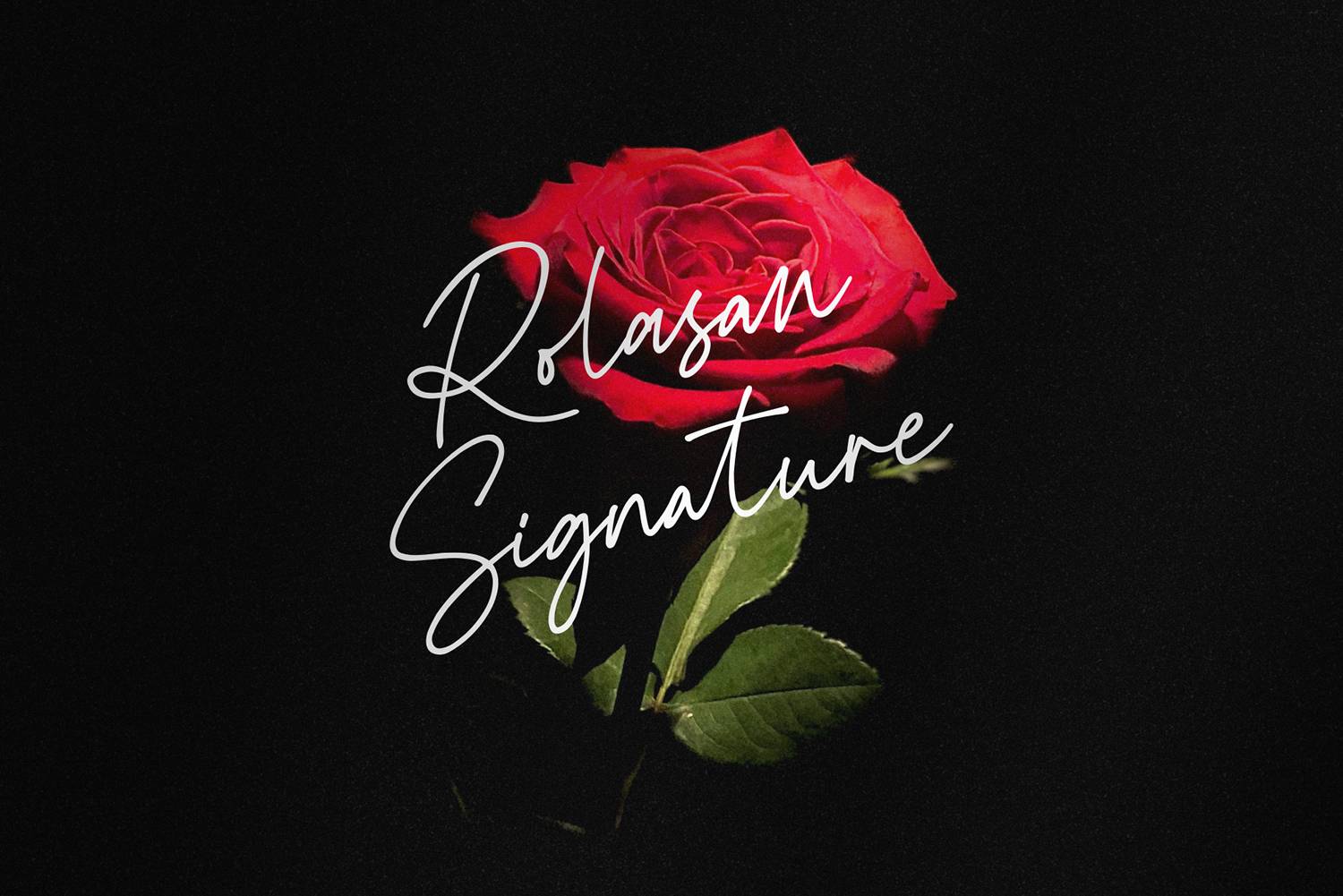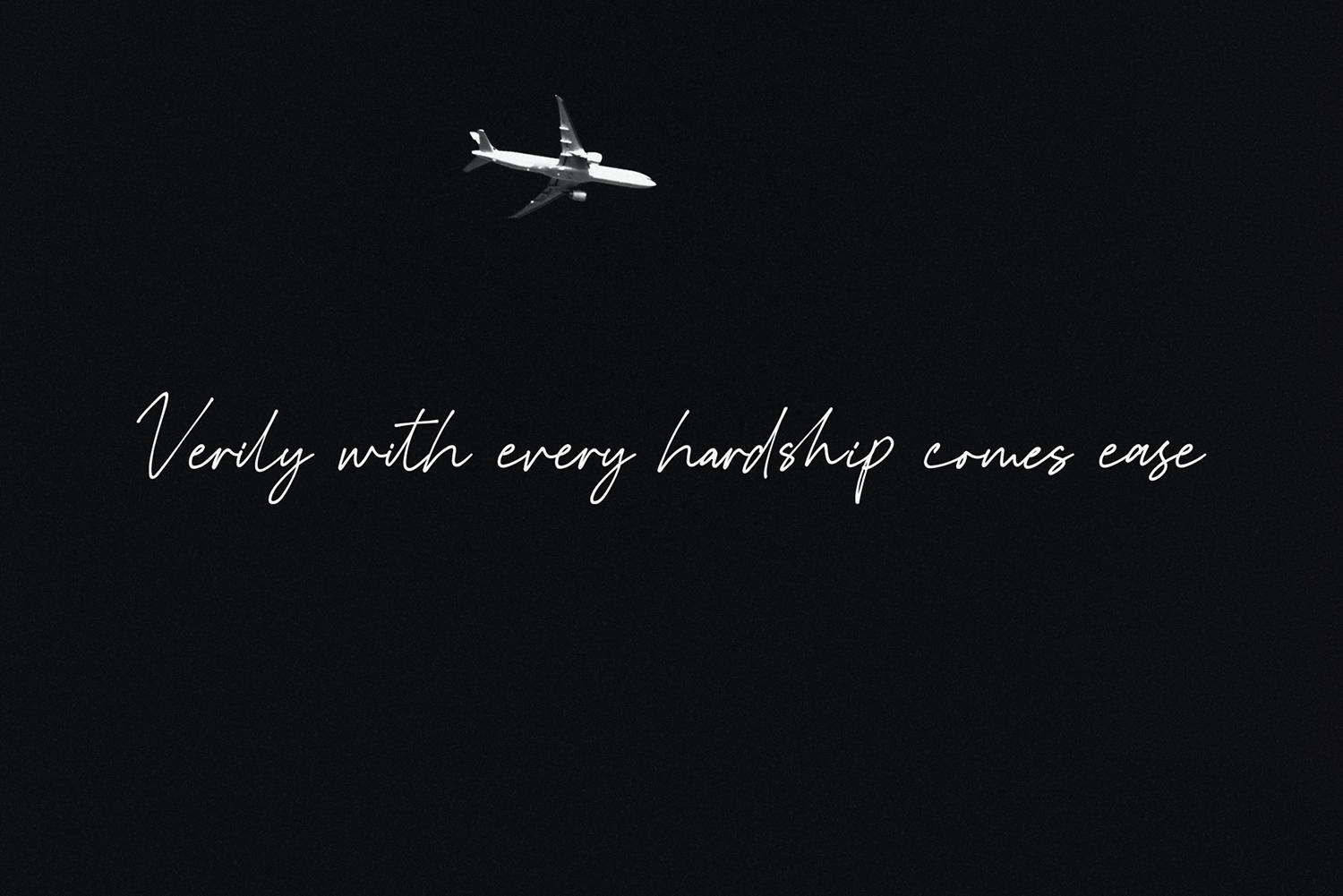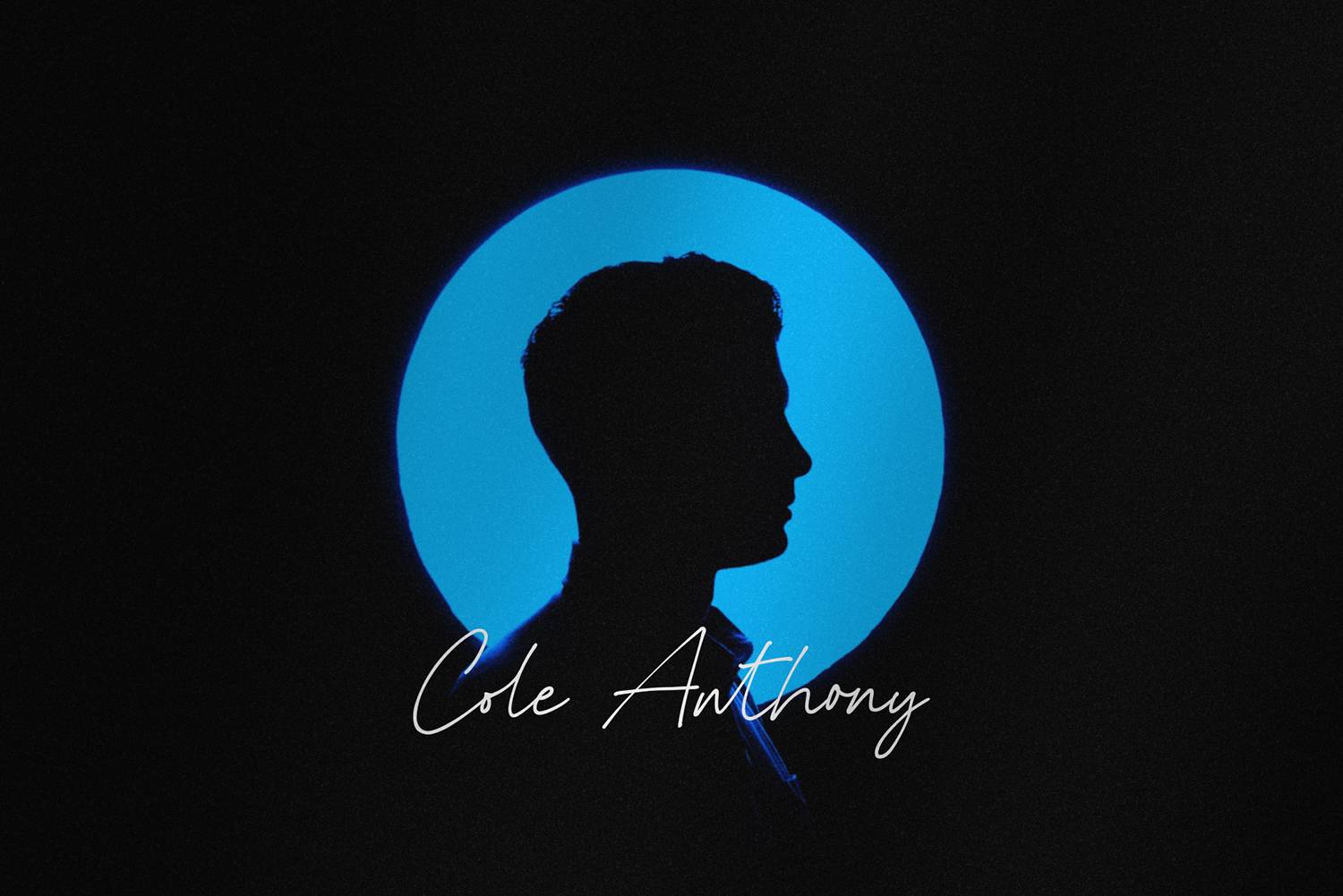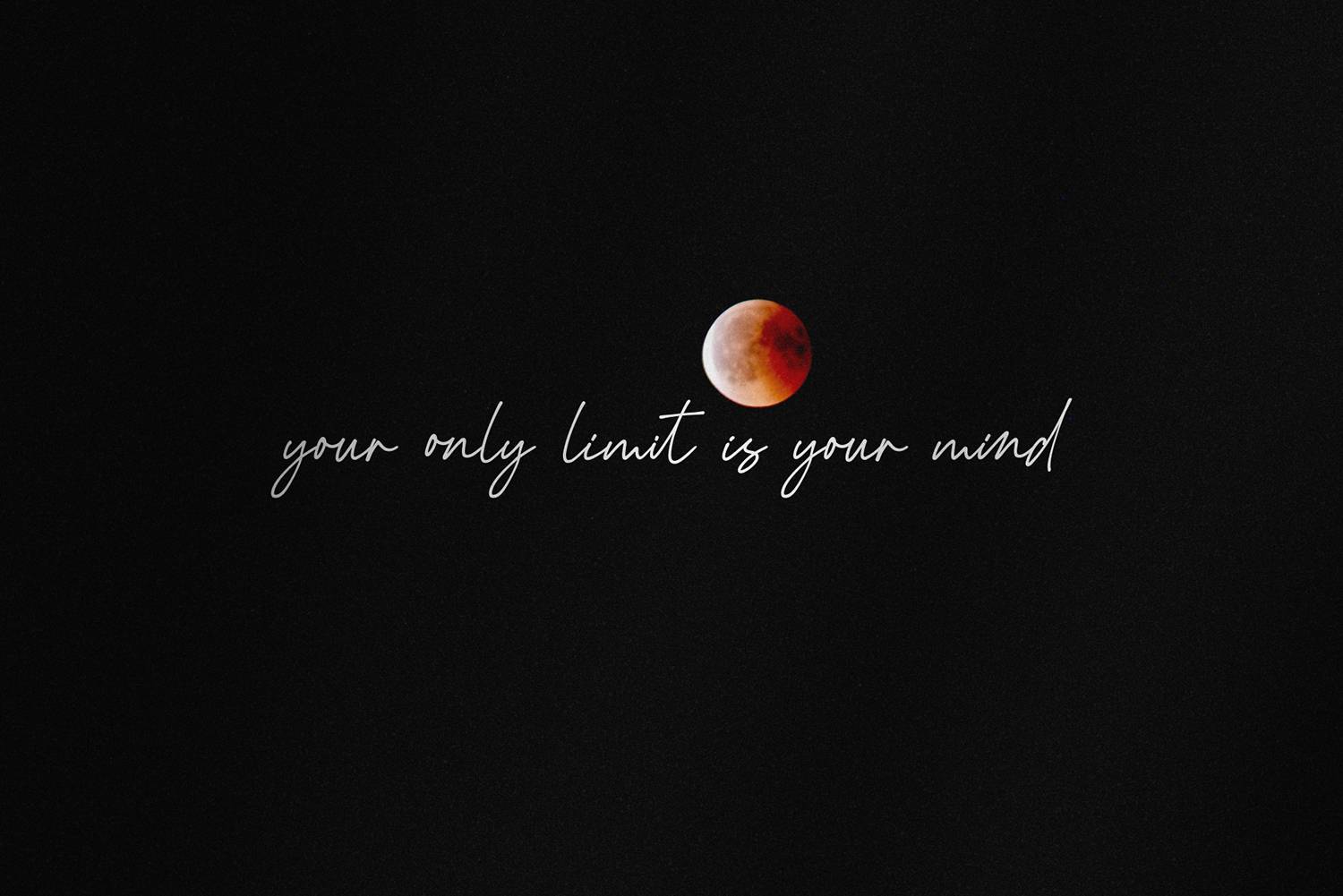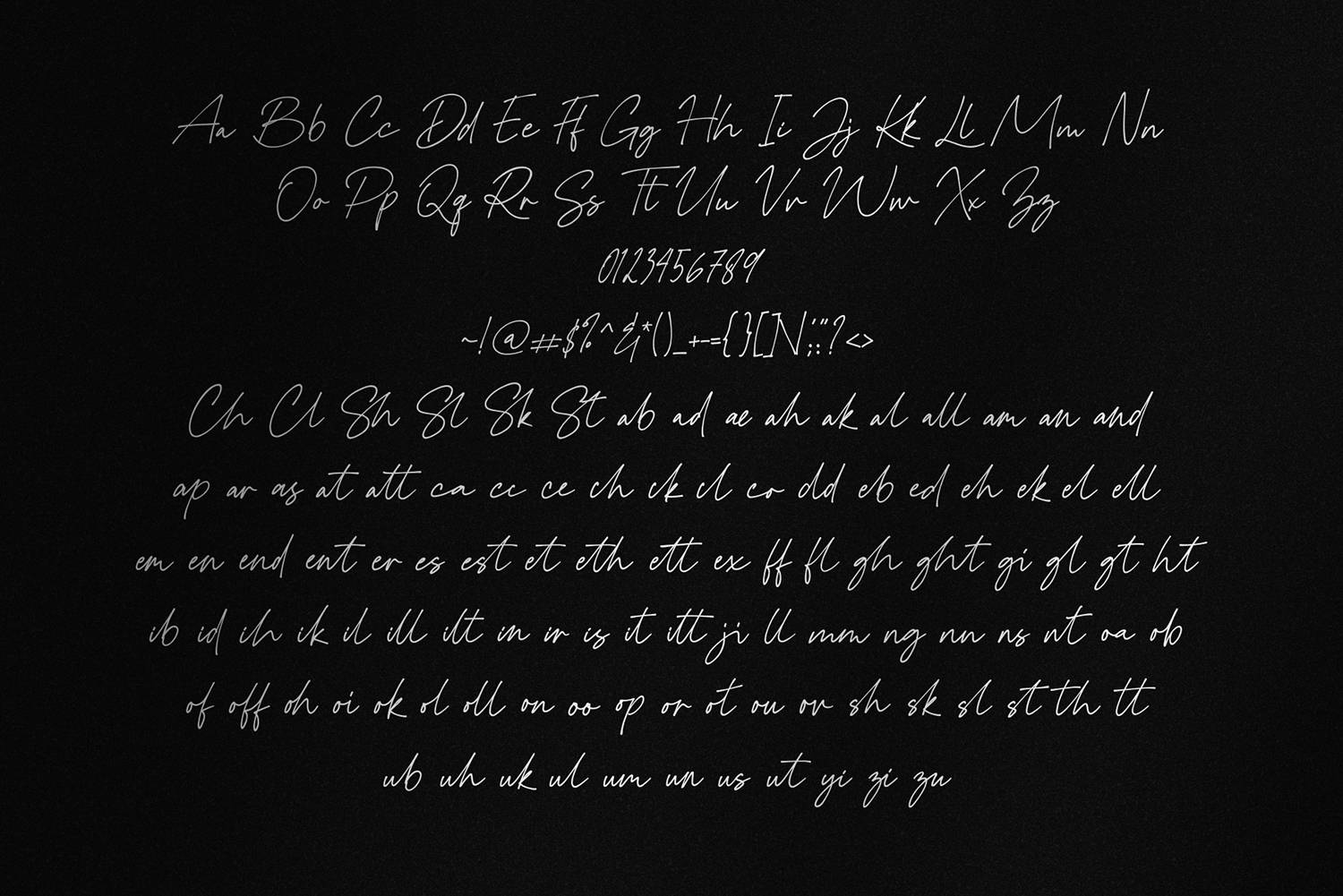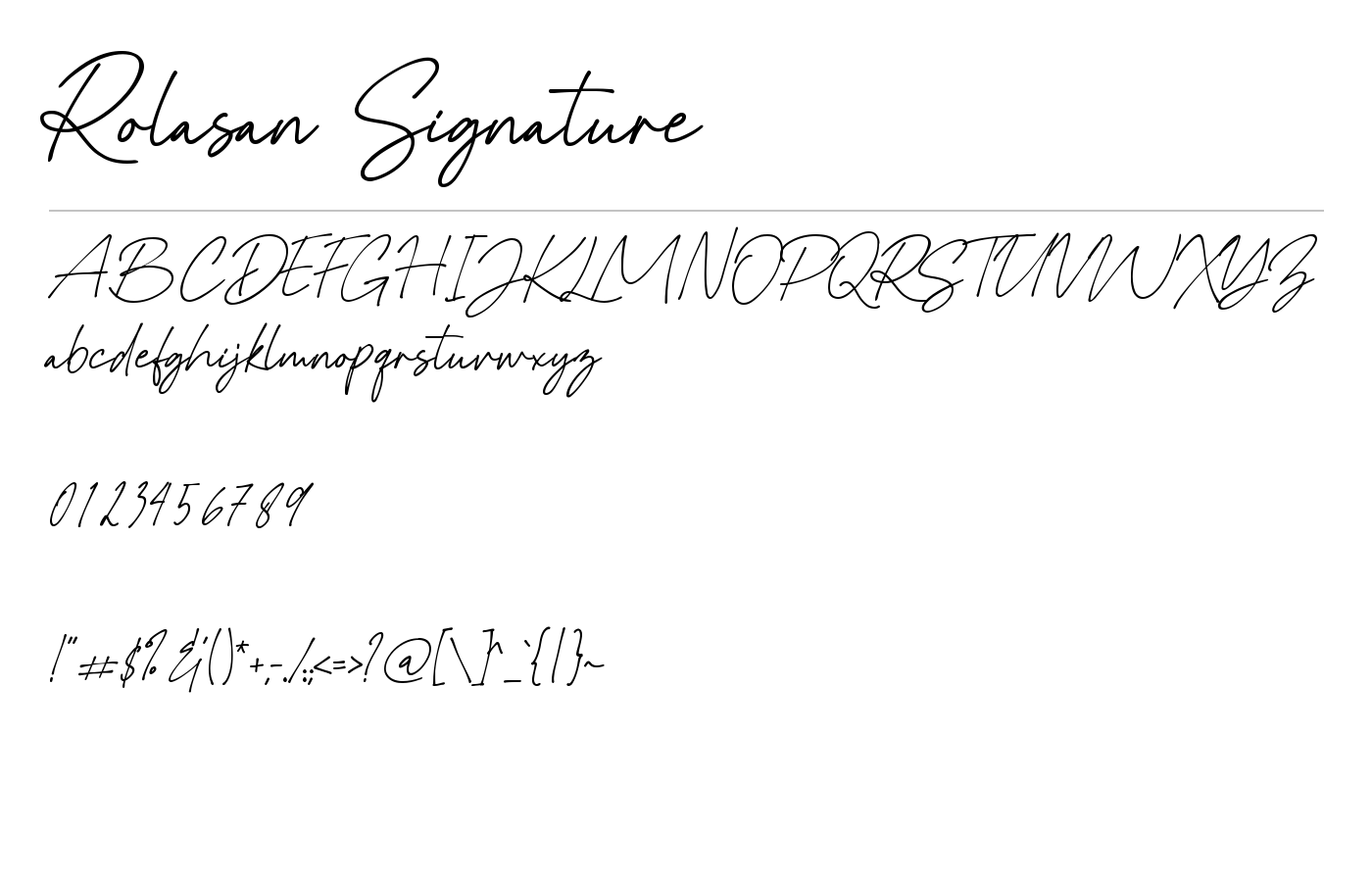
Rolasan Signature is a delicate, elegant script font that mimics natural handwriting with smooth, flowing strokes and a refined, airy feel. Its thin weight and casual yet stylish letterforms make it perfect for personal branding, invitations, and luxury designs where a touch of sophistication and warmth is desired. This font works beautifully in logos, headlines, and other creative projects that seek a modern, handwritten aesthetic.
Rolasan Signature Font
About Rolasan Signature Font
| Font family | Rolasan Signature Font |
| Release date | 2020-12-28 |
| Designer | M Zulfani D Prayogo |